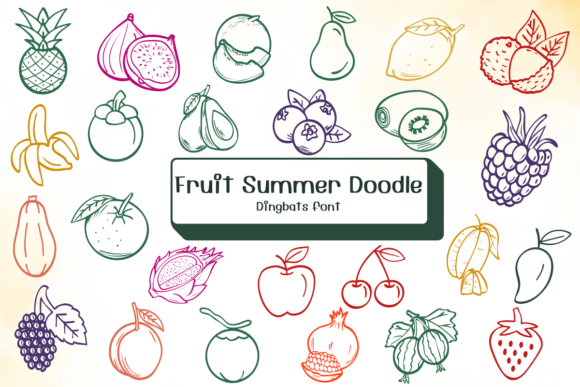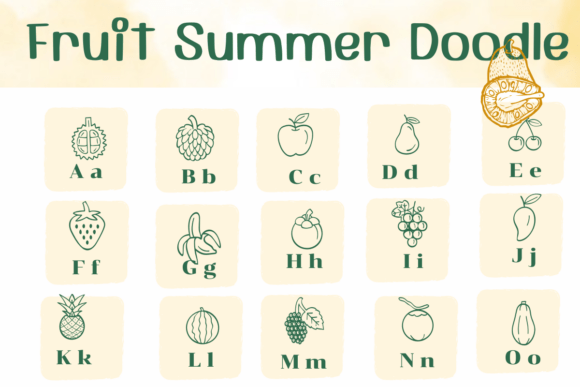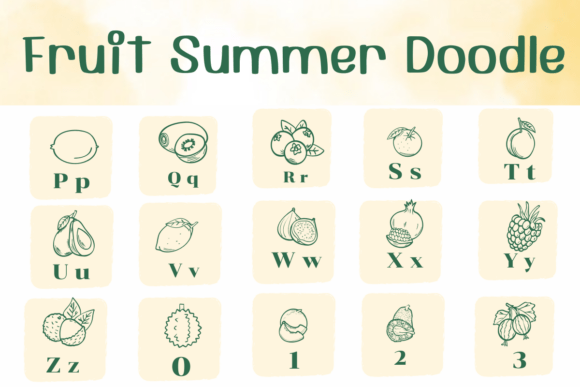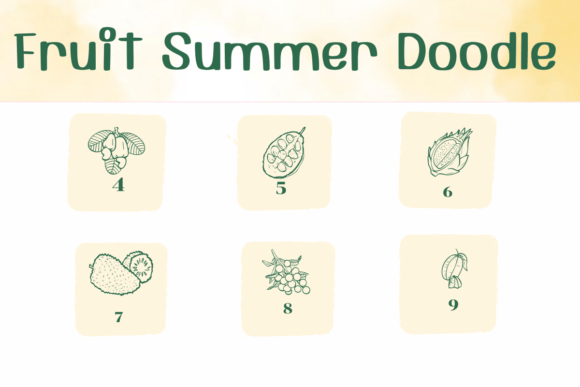
Fruit Summer Doodle Font
About the Fruit Summer Doodle Font
Experience the unique personality of Fruit Summer Doodle Font, a font designed for impact. Fruit Summer Doodle is a playful dingbats font filled with charming hand-drawn fruit illustrations. Perfect for summer-themed designs, recipe books, kids’ crafts, or branding for food and beverage products. Each symbol adds a splash of creativity and fun, making your projects vibrant and unique!
This font shines brightest in headlines, short text sections, and playful branding projects. It’s ideal for packaging, posters, and social media graphics where its whimsical charm can add visual interest. Avoid using it for body copy or long paragraphs; the unique character of each glyph makes extended reading difficult.
Fruit Summer Doodle’s playful nature pairs well with clean sans-serif fonts like Open Sans or Lato for a balanced contrast. For a more sophisticated look, consider pairing it with a delicate serif typeface such as Playfair Display. Using it with a script font should be approached cautiously, selecting a script with similarly lighthearted energy to maintain visual harmony.
The overall personality is undeniably cheerful and informal, conveying a sense of fun and summery vibrancy. It’s a great choice for brands targeting a younger demographic or projects emphasizing lightheartedness and approachability.
Fruit Summer Doodle Font Usage Examples
Fruit Summer Doodle Font Example